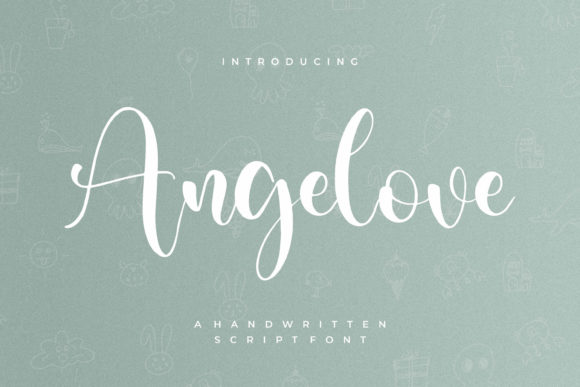
The Angelove Font: A Romantic Touch for Your Designs
The Angelove font is a dainty and flowing script font that adds a romantic and lovely touch to any design. In this article, I’ll share my experience with this beautiful font, its features, and how to make the most of it in your designs.
An Honest Review of Angelove Font
What I Love About Angelove Font
• ✨ Elegant and flowing script style that’s perfect for romantic designs
• 💕 Beautifully crafted letters with intricate details
• 🎉 Supports OpenType features, glyphs, and stylistic alternates
While the Angelove font is a stunning addition to any design, there are a few things to keep in mind:
• 🤔 May not be suitable for very formal or corporate designs, as it’s quite ornate
• ⚠️ Some letters may require manual kerning for optimal spacing
The Backstory of Angelove Font
The Angelove font was designed by a talented typographer who wanted to create a font that would evoke feelings of love and romance. Inspired by traditional calligraphy and hand-lettering, the designer crafted a font that’s both elegant and flowing. The result is a beautiful script font that’s perfect for adding a romantic touch to any design.
Q: What type of designs is the Angelove font best suited for?
A: The Angelove font is perfect for romantic designs, wedding invitations, love letters, and any project that requires a touch of elegance and sophistication.